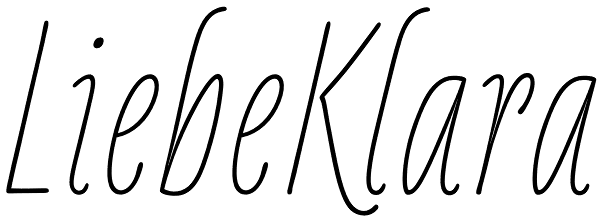
LiebeKlara
LiebeKlara is LiebeFonts’ most delicious gourmet creation yet. The mouth-watering look of savory swashes and the fine aroma of masterfully sprinkled contextual alternates will make everyone happy—your spouse, family, and friends. LiebeKlara is...